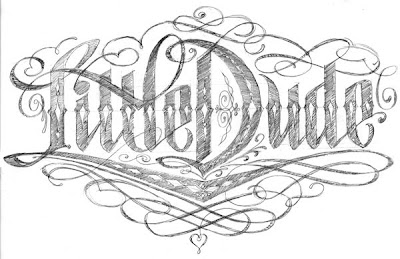
Here are some preliminary sketches for the Little Dude lettering design. This project is another example of how I change letterforms and structure while drawing in Adobe Illustrator. The tight sketch was a good start but was out of balance and the cross stroke of the double t did not read properly. All in all I am pleased with the final result and plan to continue developing this lettering style.